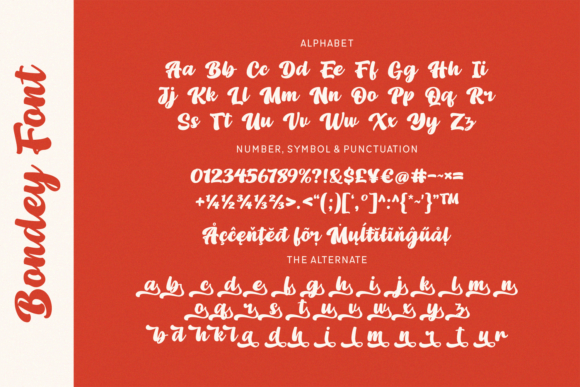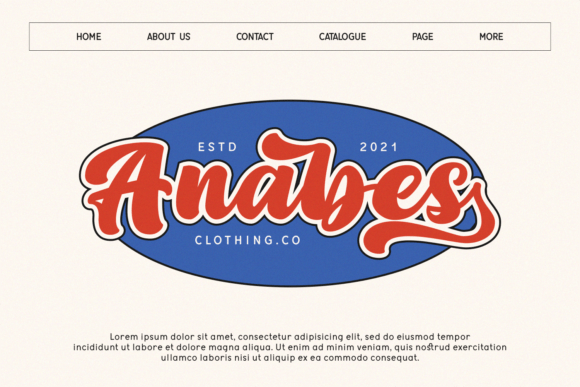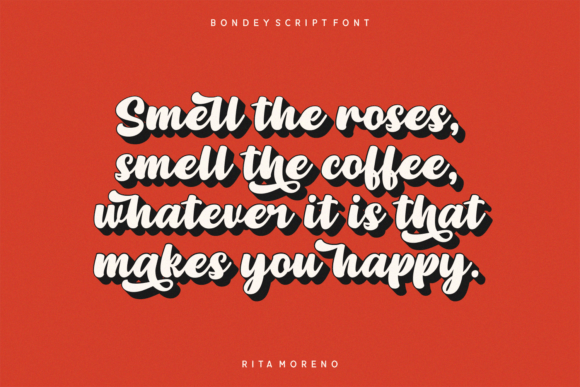
The Perfect Blend of Nostalgia and Flair: Introducing Bondey Font
Remember that moment when you stumbled upon an old record store, and the vinyl covers caught your eye? The way the bold, retro script font seemed to leap off the shelf, drawing you in with its vintage charm? That’s the magic of Bondey Font – a bold, playful typeface that combines the best of past and present to create something truly eye-catching.
Bondey Font is designed to make a statement, with smooth curves and strong lines that demand attention. Whether you’re creating a poster, invitation, or branding for your business, this font adds a touch of nostalgia and flair that’s hard to resist. For designers, Bondey Font is a valuable tool, offering endless possibilities for creative expression and visual impact.
Bondey Font Key Features
- Unique Characteristics: Bondey Font features a unique blend of modern and vintage elements, making it perfect for creative and artistic designs.
- Font Style: Bondey Font offers various font styles, including Regular, Italic, Bold, and Bold Italic, providing flexibility for different design needs.
Bondey Font Review
I recently had the chance to work with the Bondey Font, and I must say it’s a unique and interesting addition to my design library. Here’s my honest take on it:
- Legibility: The Bondey Font is highly legible, even at smaller font sizes, which makes it perfect for body text.
- Expressiveness: The font has a distinct, energetic feel that’s perfect for creative projects and editorial content.
- Character set: The font includes a wide range of characters, including Cyrillic and Greek scripts, making it a great choice for multilingual projects.
- Limited style options: While the Bondey Font has a unique feel, it’s a bit limited in terms of style options, which might make it less versatile for certain projects.
- Not suitable for formal content: The font’s energetic feel might not be suitable for formal or corporate content, where a more traditional font is often preferred.
Overall impression
The Bondey Font is a great choice for designers looking for a unique, expressive font that’s perfect for creative projects and editorial content. While it may not be the best choice for formal content or projects that require a wide range of style options, it’s definitely worth considering for the right project.
Bondey Font Practical Application Guide
Tips for Getting the Most Out of the Bondey Font
To get the most out of the Bondey Font, use it sparingly and in creative ways, such as:
– Creating custom watermarks or logos
– Adding a touch of elegance to headings and titles
– Using it in combination with other fonts for a unique look
The Bondey Font is perfect for:
– Luxury branding and packaging
– High-end marketing materials and advertising
Alternatives to Bondey Font
Playfair Display is a high-end, elegant serif font suitable for luxury branding, invitations, and high-end publications. It’s ideal for creating a sophisticated and refined look. Compared to Bondey Font, Playfair Display has a more classical and traditional feel, while Bondey Font is more modern and minimalist.
Great Vibes is a modern, elegant script font perfect for creative branding, quotes, and titles. It’s ideal for adding a touch of sophistication and elegance to your design. Compared to Bondey Font, Great Vibes has a more flowing and organic feel, while Bondey Font is more geometric and structured.
Alice
Alice is a beautiful, elegant script font ideal for creative branding, titles, and quotes. It’s perfect for adding a touch of whimsy and sophistication to your design. Compared to Bondey Font, Alice has a more playful and cursive feel, while Bondey Font is more modern and minimalist.
Q: What is the recommended font size for optimal readability with the Bondey Font?
The recommended font size for optimal readability with the Bondey Font is between 10pt and 14pt, depending on the intended use and design context. However, it’s essential to note that font size is just one factor affecting readability, and designers should also consider line spacing, text color, and background contrast when creating legible and visually appealing designs.